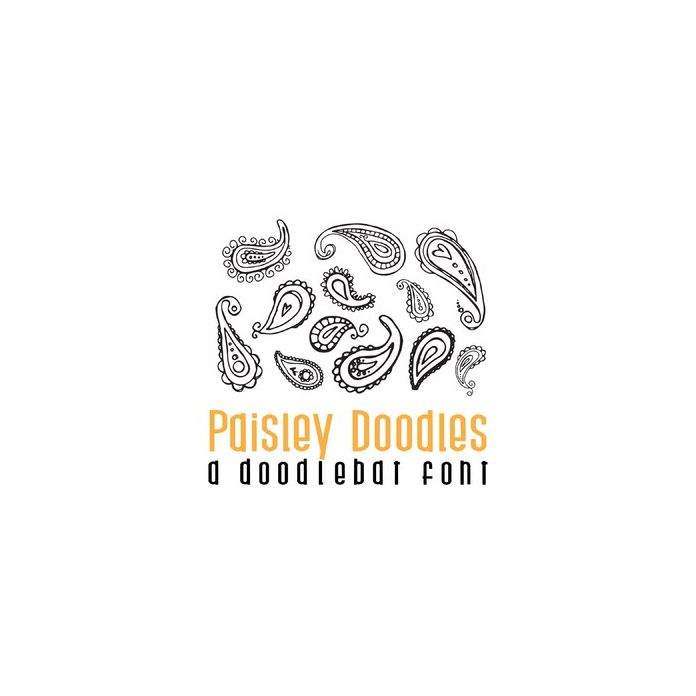
paisley doodles doodlebat font
This fun doodlebat font features 26 paisley doodles. Perfect for cards, gifts, decor, crafts, scrap book pages, planner stickers and more!